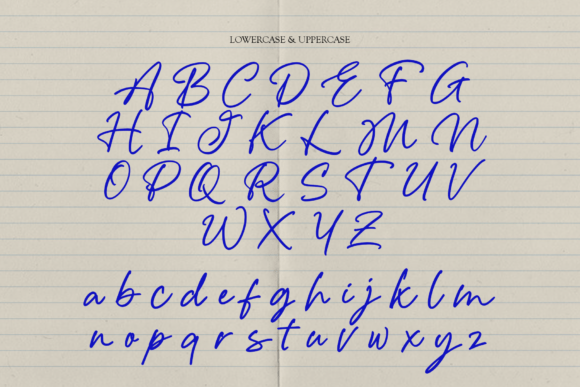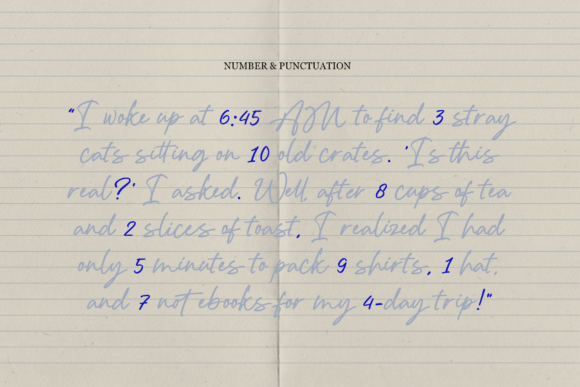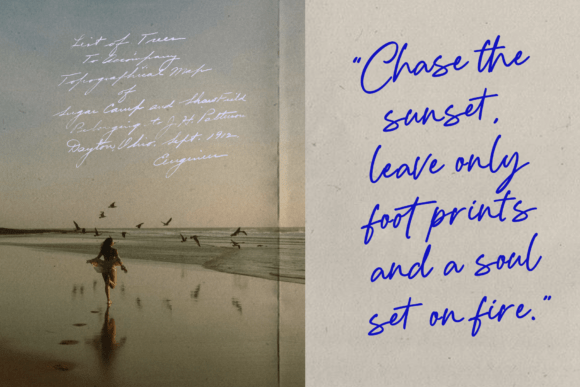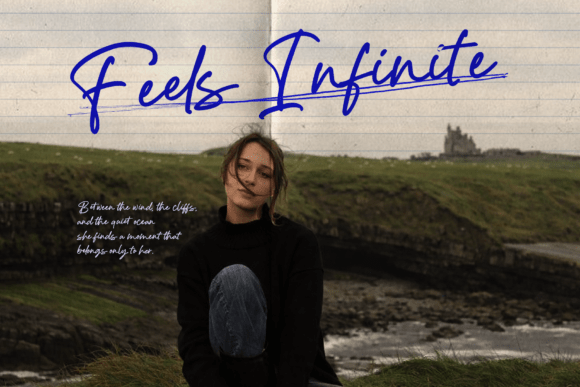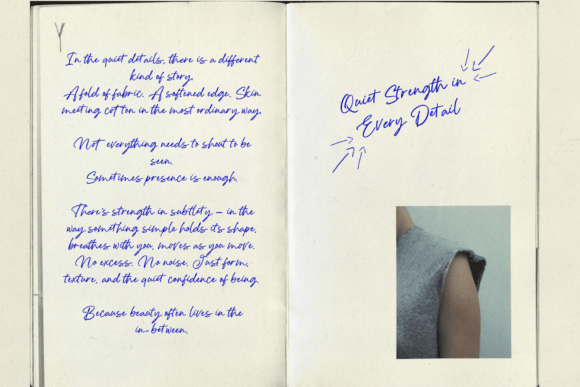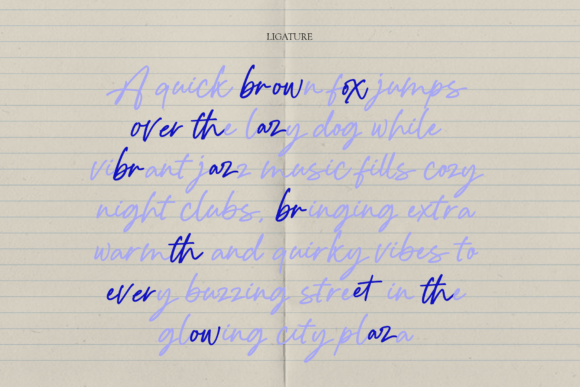
Introducing Everyday Motion Font: A Natural Handwritten Brush Script
Are you looking for a font that captures the essence of spontaneity, freedom, and effortless expression? Look no further than Everyday Motion, a beautiful handwritten brush script font that brings a personal touch to your designs. With its smooth, flowing lines and slightly textured brush movement, this typeface feels warm, lively, and authentic, making it perfect for a wide range of creative projects.
The Characteristics of Everyday Motion Font
Everyday Motion is a carefully crafted font that embodies the feeling of writing or painting in a single, confident motion. Its natural, handwritten style is characterized by:
• Smooth, flowing lines that evoke a sense of movement and fluidity
• Slightly textured brush movement that adds a touch of warmth and authenticity
• Uppercase and lowercase letters, numbers, punctuation, and stylistic ligatures for versatile typography
• Multilingual support to cater to diverse design needs
Everyday Motion is an incredibly versatile font that can be used for a wide range of design applications, including:
• Branding: Create a unique and memorable brand identity with Everyday Motion’s distinctive, handwritten charm
• Social media quotes: Add a personal touch to your social media posts and quotes with this font’s warm, engaging style
• Postcards and packaging: Make your postcards and packaging designs stand out with Everyday Motion’s natural, effortless look
• Lifestyle photography: Use this font to add a touch of authenticity to your lifestyle photography and create a cohesive visual narrative
• Apparel graphics: Create eye-catching apparel graphics with Everyday Motion’s bold, yet relaxed style
• Creative editorial layouts: Use this font to add a touch of personality to your editorial designs, such as magazines, blogs, and more
Why Choose Everyday Motion Font?
So, why should you choose Everyday Motion for your design projects? Here are just a few reasons:
• Authentic handwritten charm: Everyday Motion brings a genuine, handwritten feel to your designs, making them stand out in a crowded digital landscape
• Modern yet intimate: This font strikes the perfect balance between modern style and intimate, personal expression
• Strong visual impact: Everyday Motion’s unique style ensures that your designs will grab attention and leave a lasting impression
• Natural readability: The font’s smooth lines and flowing curves make it easy to read, even at smaller sizes
Tips for Using Everyday Motion Font
To get the most out of Everyday Motion, here are a few tips:
• Experiment with different sizes: Everyday Motion looks great in a variety of sizes, from bold headlines to smaller body text
• Play with color: This font looks great in a range of colors, from bright and bold to muted and pastel
• Mix and match: Combine Everyday Motion with other fonts to create a unique and visually interesting typography
Everyday Motion is a beautiful, natural handwritten brush script font that brings a touch of spontaneity, freedom, and effortless expression to your designs. With its smooth lines, flowing curves, and slightly textured brush movement, this typeface feels warm, lively, and authentic. Whether you’re a designer, craft, or simply someone looking for a unique font for your creative projects, Everyday Motion is an excellent choice. So why not give it a try and see how it can elevate your designs?